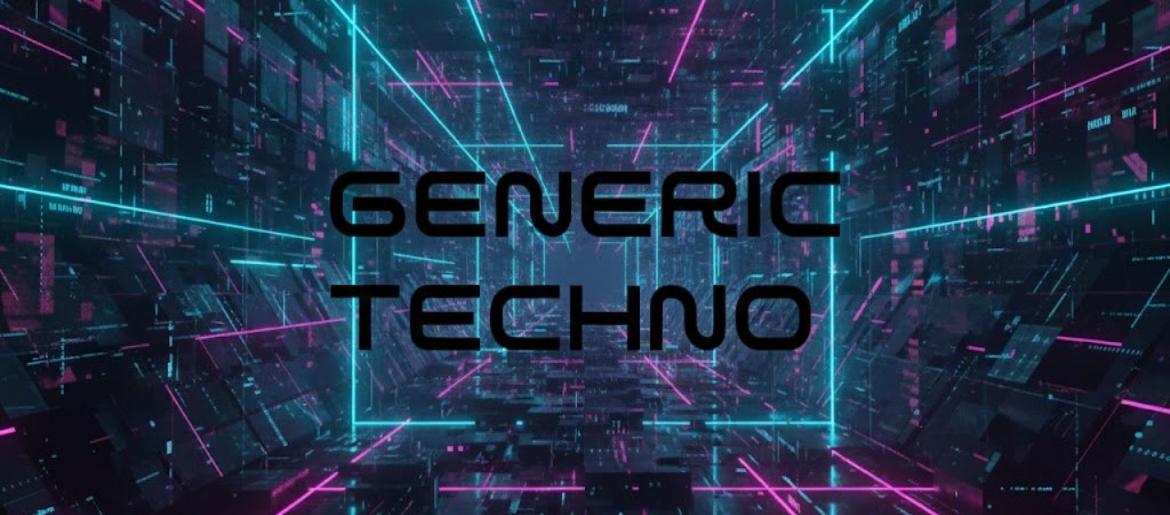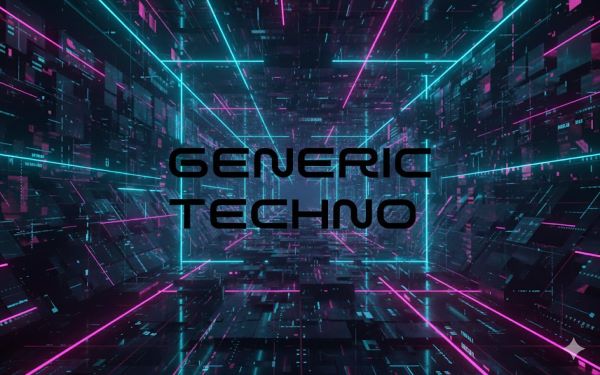
Generic Techno Font
Generic Techno font
Generic Techno Font is a geometric display typeface by NC Empire that delivers a clean, dynamic, and futuristic vibe. It suits headlines, posters, logos, and large typography, especially for automotive, technology, and sci-fi themed designs. Its sharp structure and modern styling make it visually striking and a strong choice among bold and futuristic free fonts.